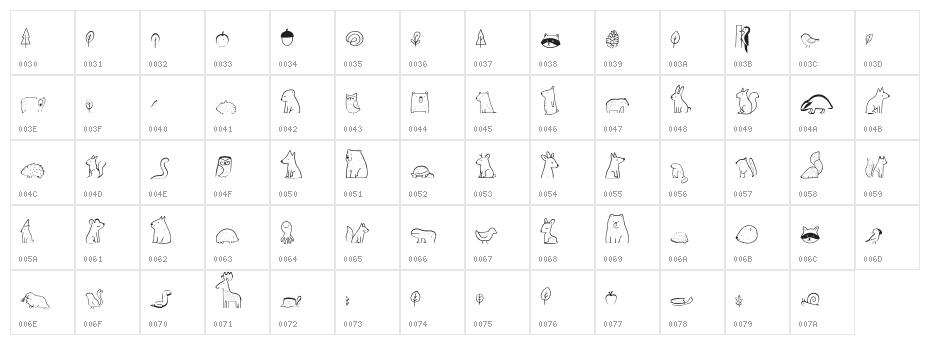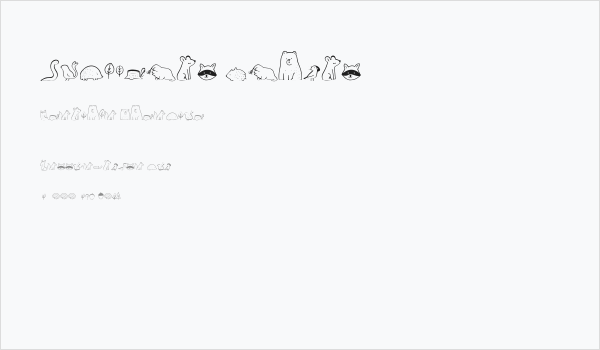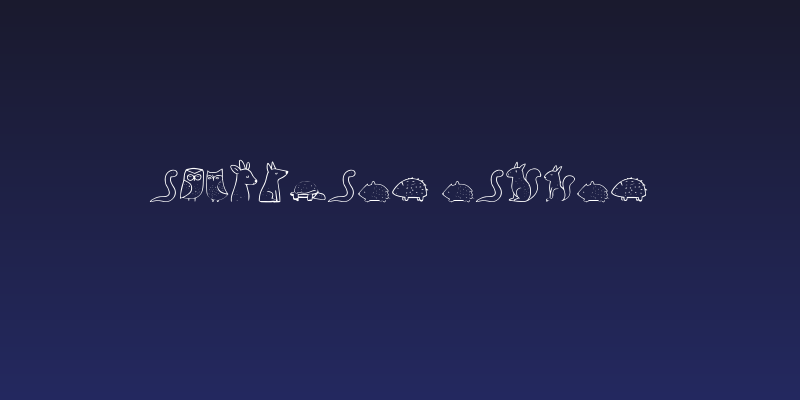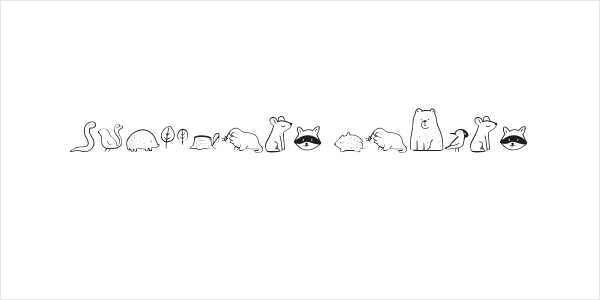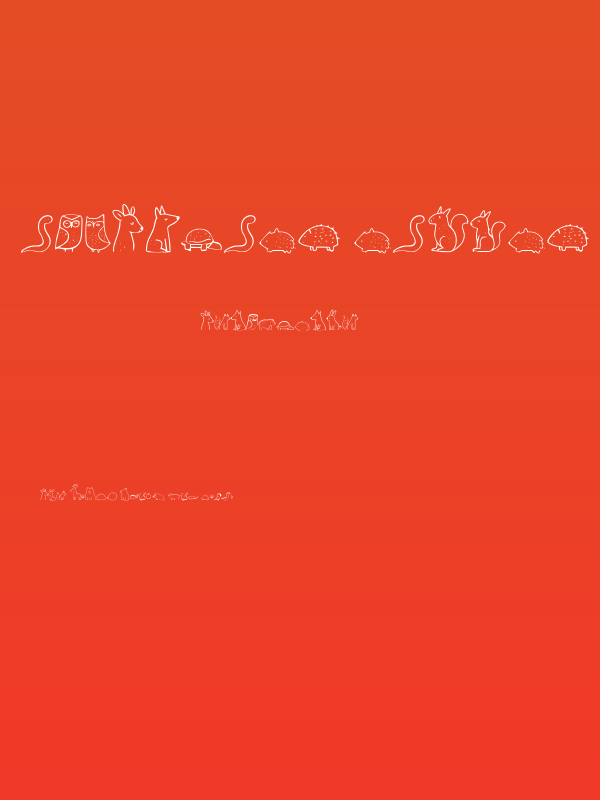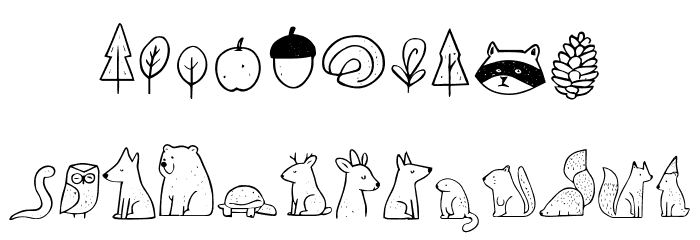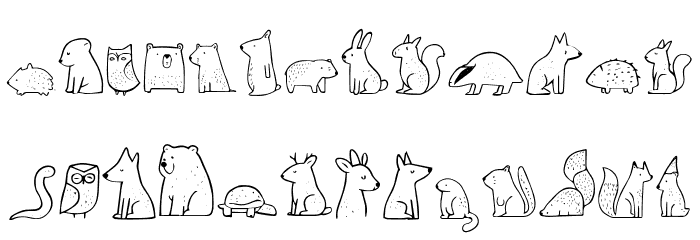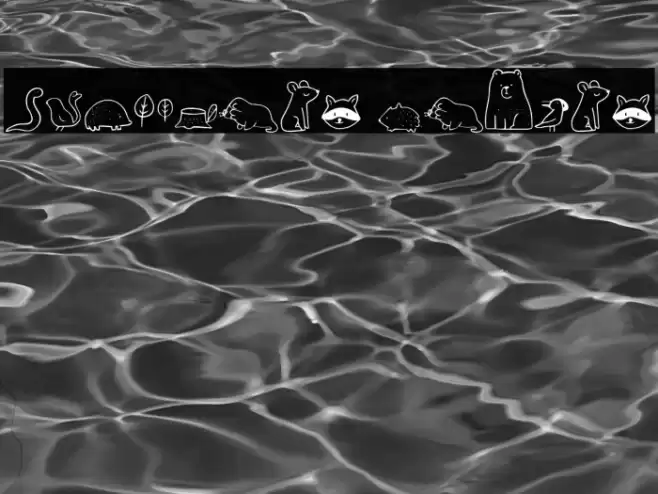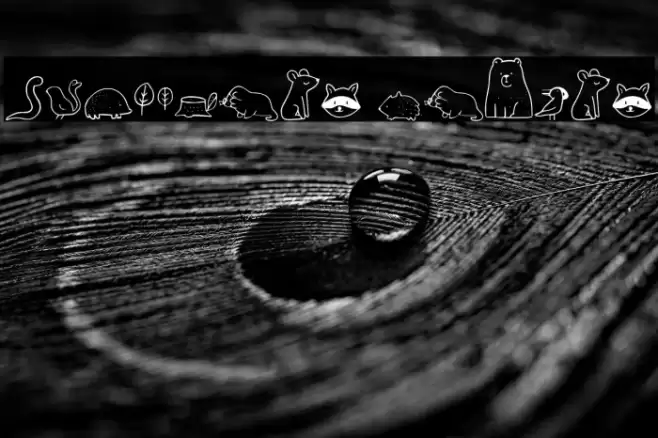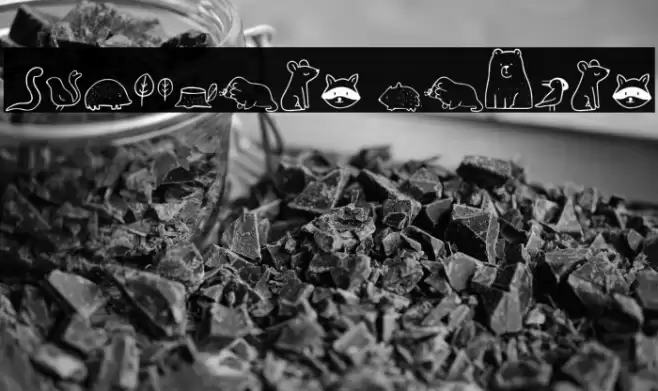
Nocturnal Animal Font
Nocturnal Animal Description
A playful, hand-drawn decorative font featuring whimsical animal and nature doodles in place of traditional alphanumeric characters, with simple line art and a friendly, informal style.
| Overall Style | Decorative, Whimsical, Playful |
| Use Case | Logos, Headlines, Posters, Children’s materials |
| Proposed Projects | Children’s books, greeting cards, educational materials, posters, playful branding, scrapbooking. |